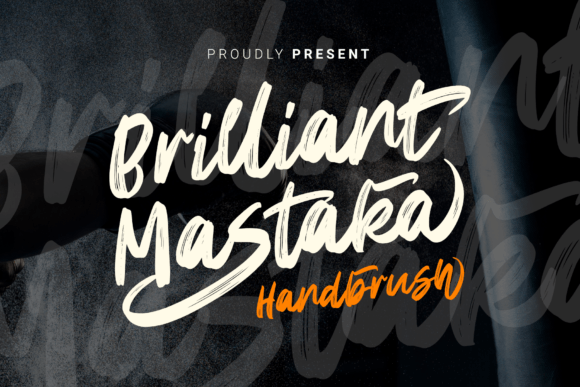
Unlocking Creativity with Brilliant Mastaka Font
Have you ever been in the middle of a design project, and suddenly, it feels like something’s missing? You’re not quite sure what it is, but you know it’s not quite right. I recall a recent experience where I was working on a logo design for a client who wanted a modern, yet traditional feel. I tried font after font, but nothing seemed to capture the essence of what I was envisioning. That was until I stumbled upon the Brilliant Mastaka font. This beautiful, hand-brushed font has been a game-changer for my designs, and I’m excited to share my experience with you.
A First Impression: What Makes Brilliant Mastaka Special
Brilliant Mastaka is more than just a font; it’s an experience. It brings to mind the elegance of traditional Chinese brush writing but with a modern twist that makes it incredibly versatile. Whether you’re designing logos, posters, TikTok stories, Instagram captions, or YouTube thumbnails, this font can add a unique touch to your creations.
Here’s what I love about Brilliant Mastaka:
• ✨ Unique Aesthetic: The hand-brushed look gives it a distinctive, artistic feel that’s hard to find in other fonts.
• ✅ Versatility: It’s suitable for a wide range of projects, from digital media to print.
• 💡 Inspirational: Seeing this font in action can spark creativity and inspire new design ideas.
And here are a few quirks to consider:
• 🤔 Legibility at Small Sizes: Like many script fonts, it can get a bit tricky to read at very small sizes. It’s best used at larger sizes where its details can shine.
• ⚠️ Language Support: While it’s designed with a specific cultural inspiration, it’s essential to ensure it meets your project’s language requirements.
The Story Behind Brilliant Mastaka
While the origins of Brilliant Mastaka are shrouded in mystery, it’s clear that its creation was inspired by a desire to blend traditional techniques with modern design sensibilities. The result is a font that feels both timeless and contemporary.
Font Name Brilliant Mastaka Font
Author DUMADI
Is Brilliant Mastaka suitable for body text? While it’s stunning for headlines and short paragraphs, its legibility at smaller sizes might make it less ideal for extensive body text.
Does Brilliant Mastaka support multiple languages? Its design is inspired by traditional Chinese scripts, but it may not support all languages. Check the font’s documentation for specific language support.
Brilliant Mastaka is more than just a font; it’s a tool for unlocking creativity and bringing a unique touch to your designs. Whether you’re a seasoned designer or a creative hobbyist, this font has the potential to elevate your projects and inspire new ideas. So, why not give it a try and see where it takes your creativity?